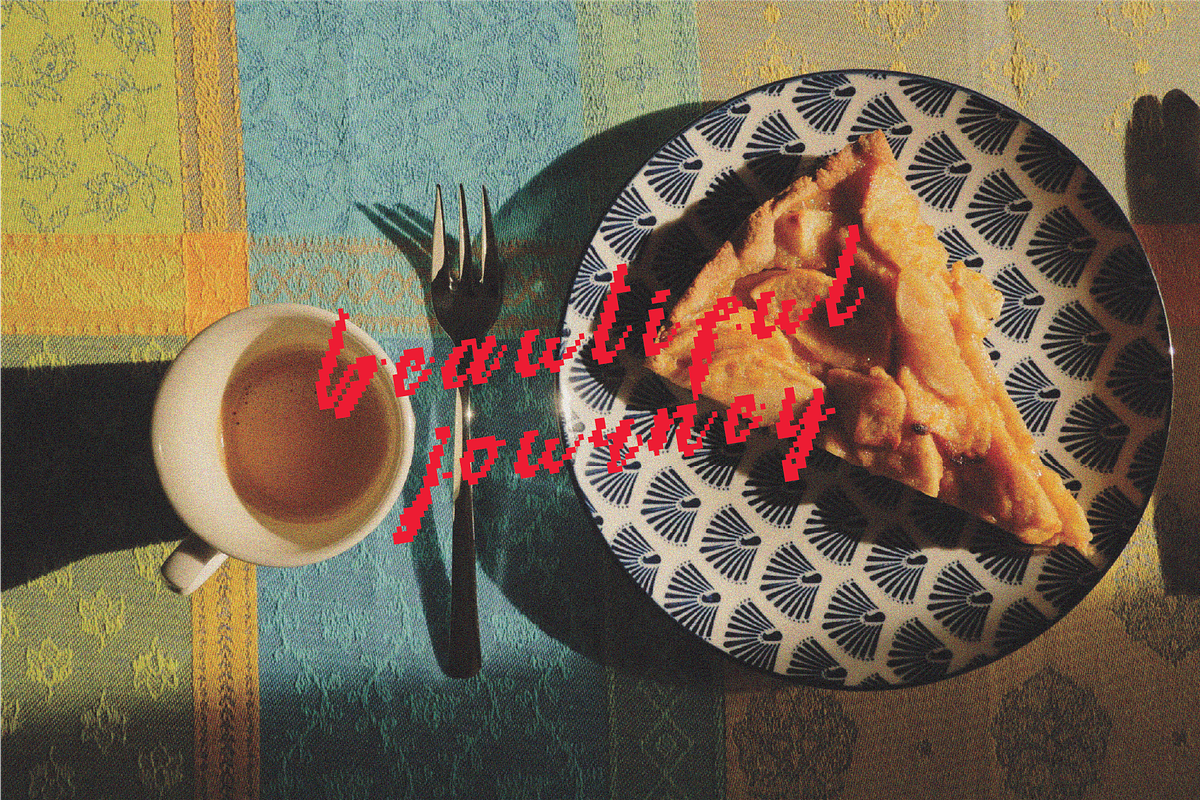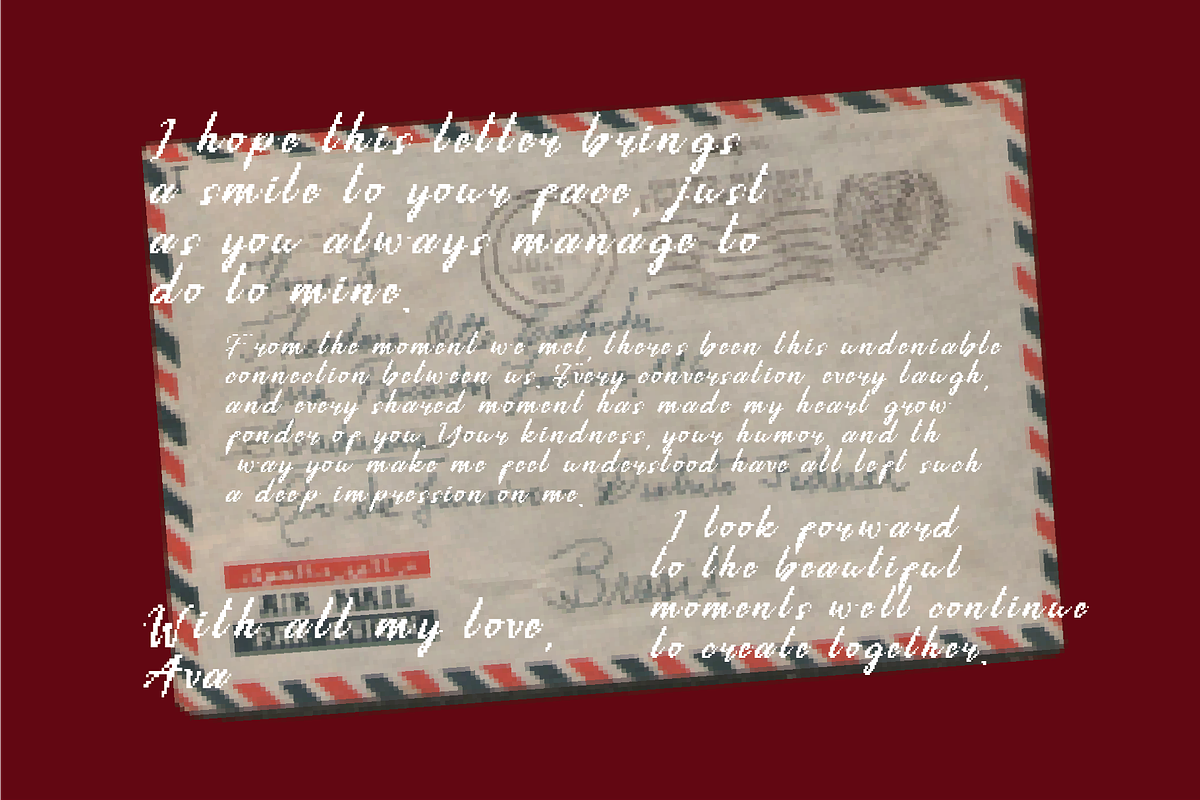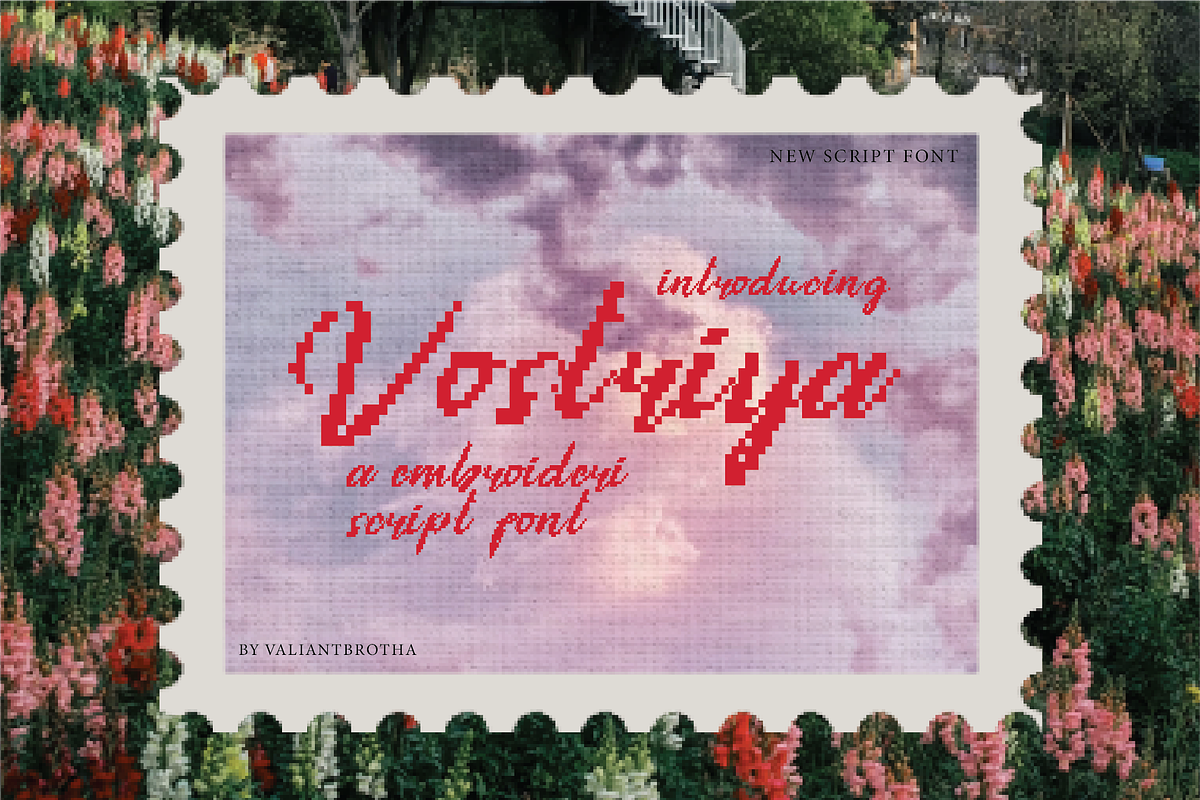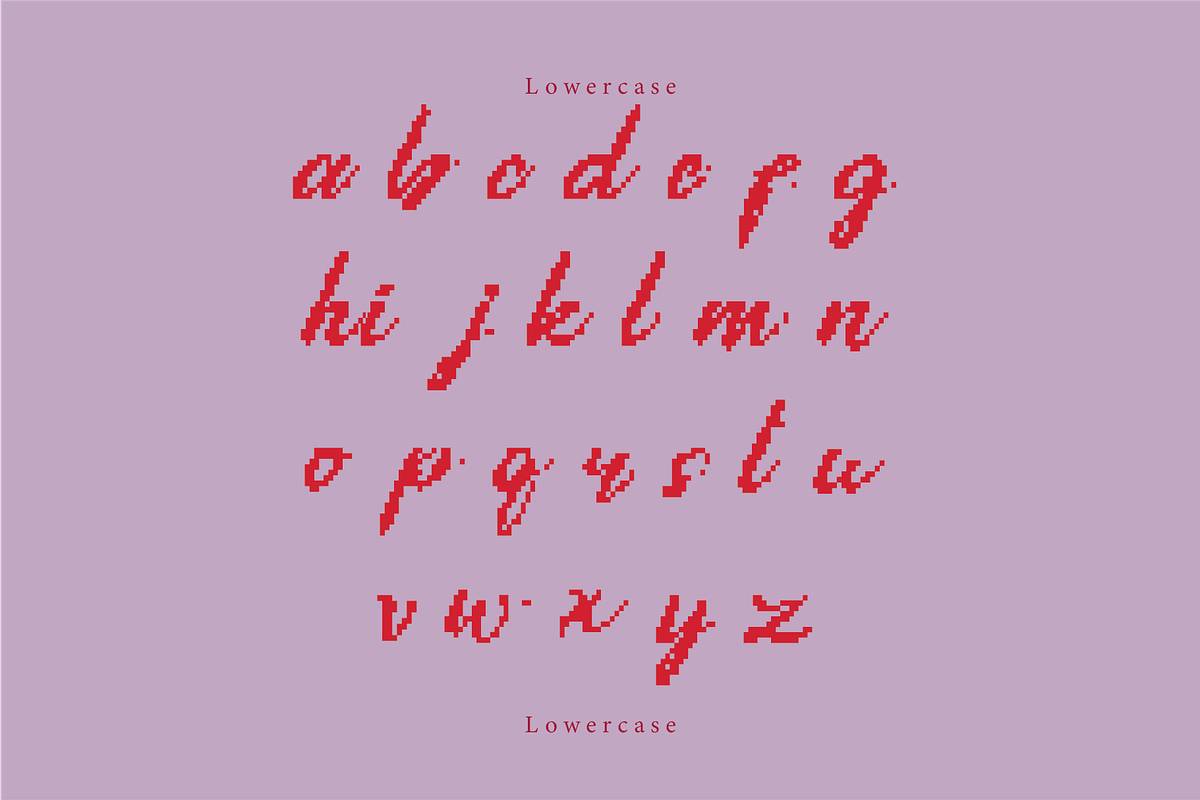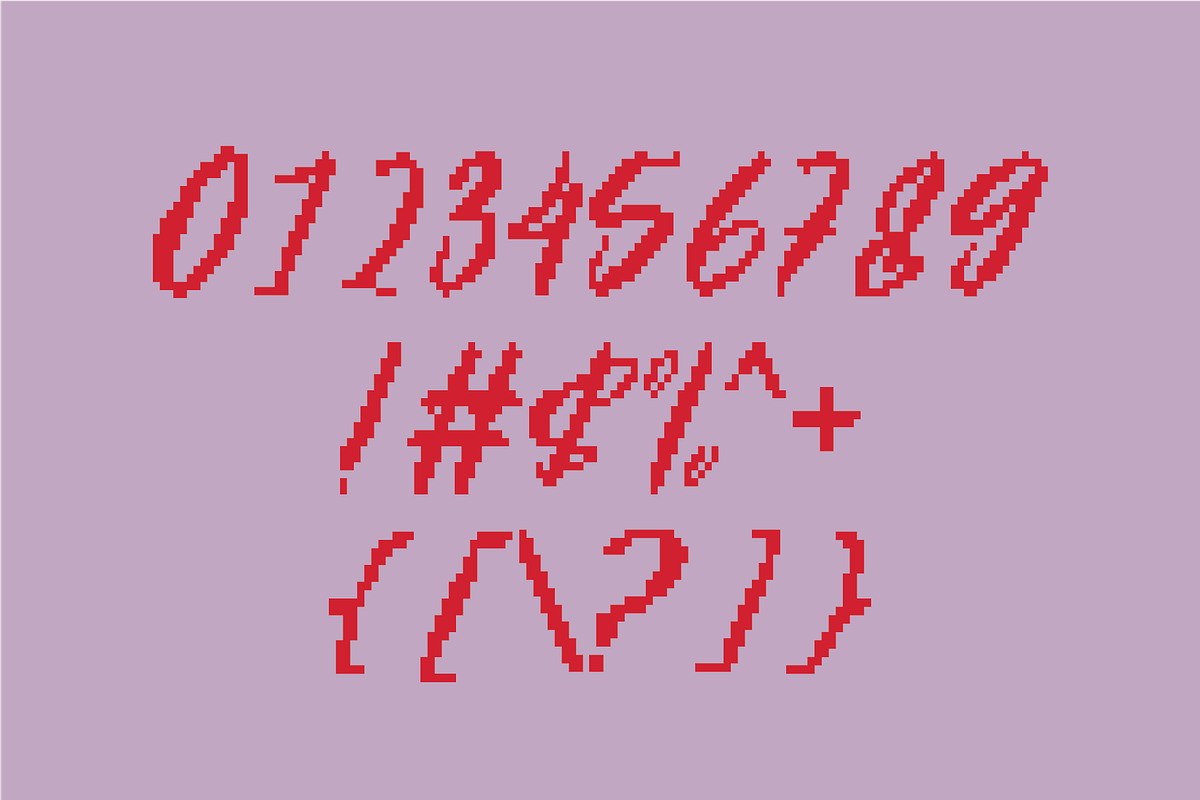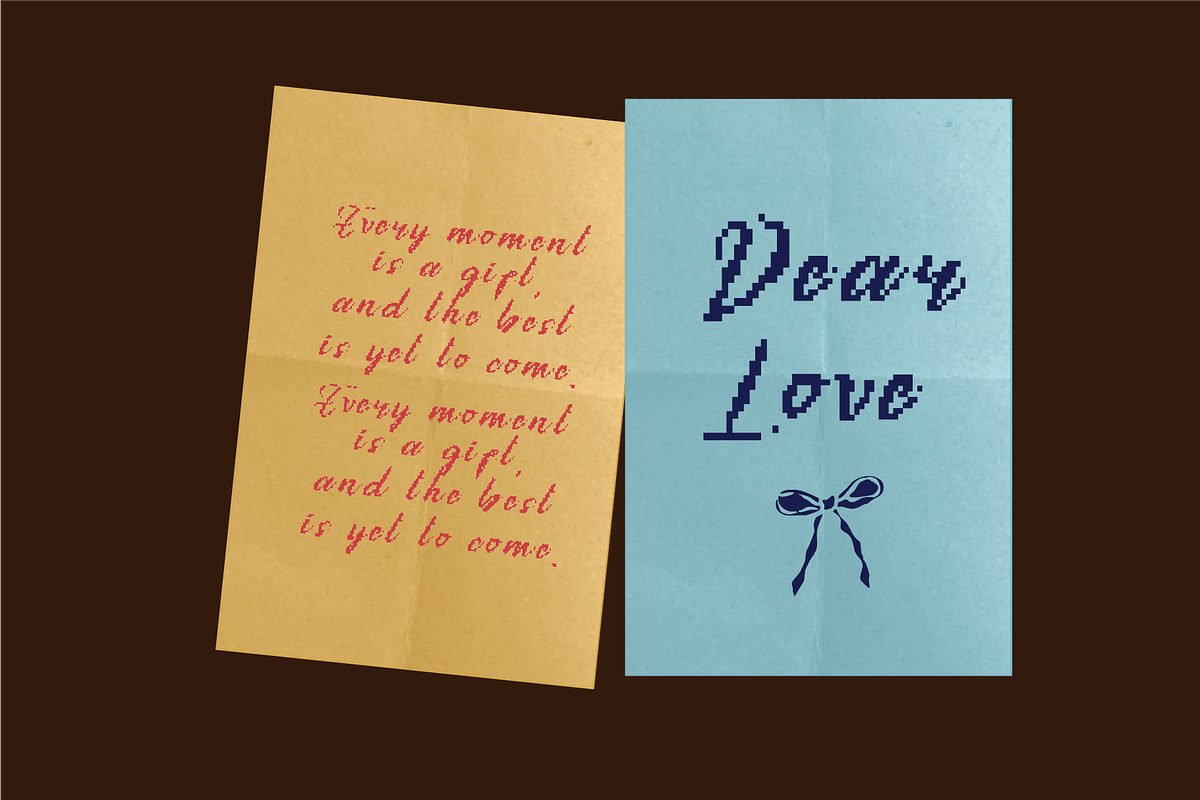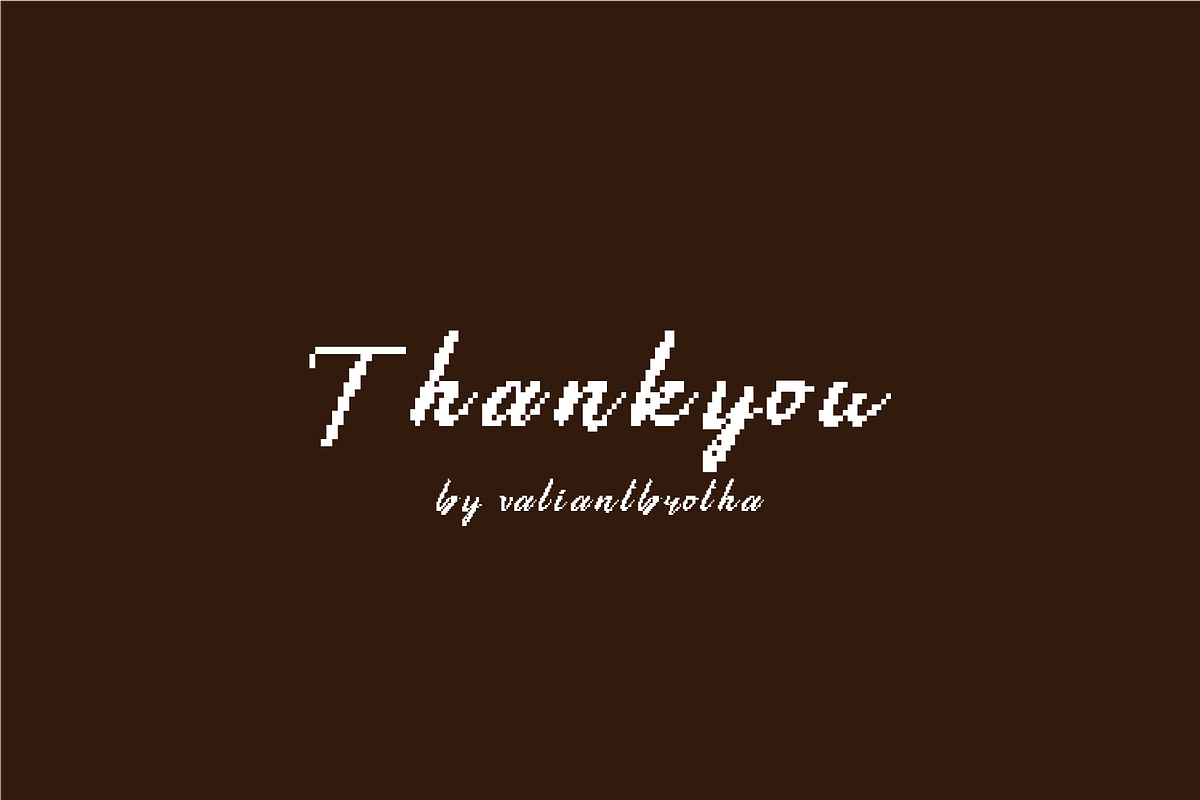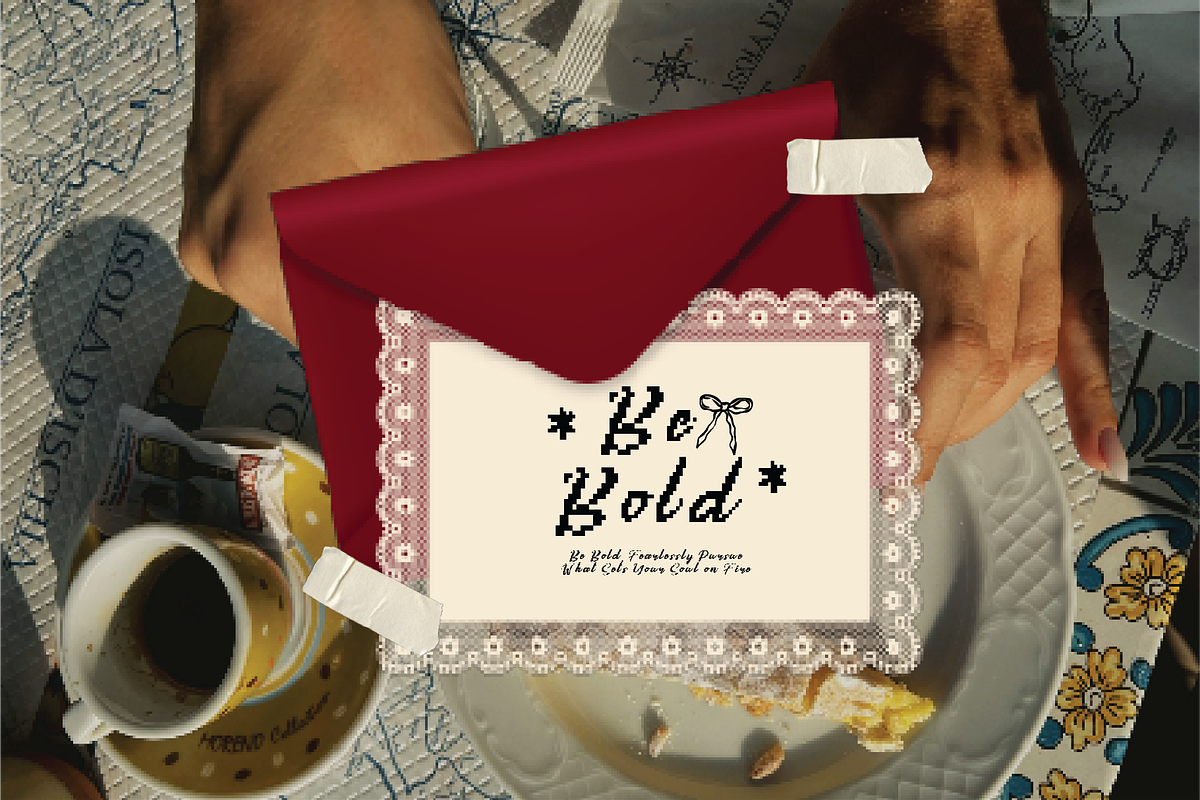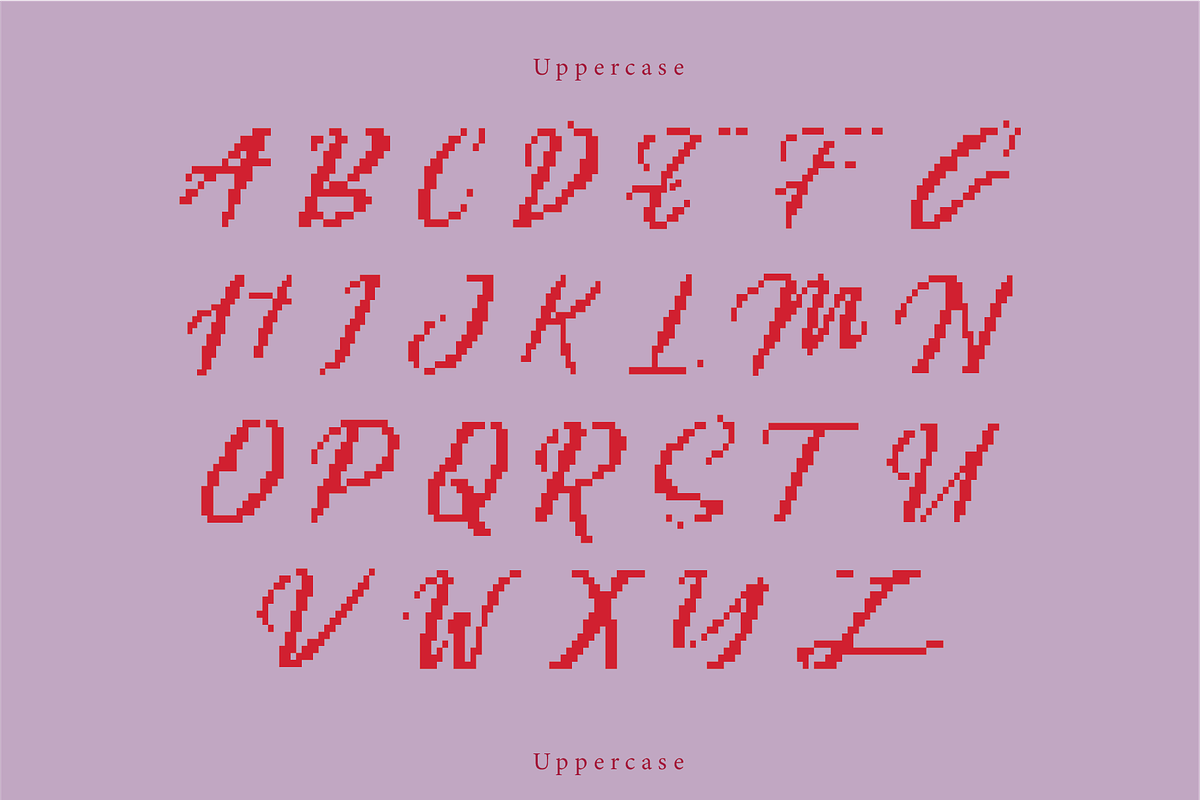
Vostriya | A Embroidery Script Font
Vostriya is a unique analog-inspired script font that blends pixelated structure with flowing handwritten motion.
Numbers, marks and symbols